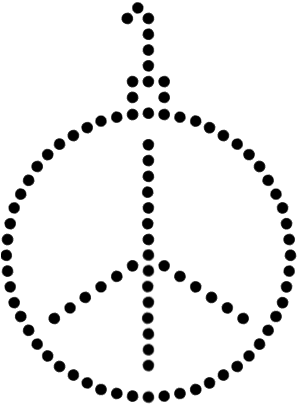
@funk_king - Have yourself a dotty little Christmas, indeed!  Looks like something from a 'primitive' 1980s banner maker.  :^)
Congratulations! FontStruct Staff have deemed your FontStruction worthy of special mention. “Ornaments” is now a Top Pick.
2x2 filters?
yes and lots of nudging ;)
Marvelous, as usual, dear master! And what about to include this one?
Very pretty christmas tree ball decorations. The 56 point circle is superb. Great selection of patterns, especially at the lower case. Yes, it takes lots of nudging; but first it must have taken careful design. Merry Christmas! 10/10
thank you elmo and frodo. i hadn't counted the dots. glad you got an even count, frodo. not much planning per se. actually started with the smallest circle in another design. tried doing the biggest circle a couple of time and when i finally got it, started trying different variations. i'm still a pretty messy designer, but i clean up nicely :) happy holidays!
oh, elmo - i thought i had that one. thanks :)